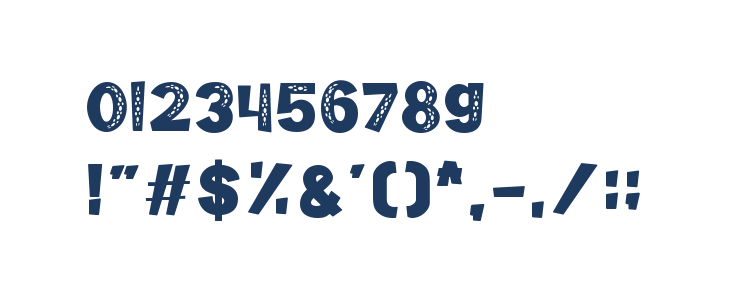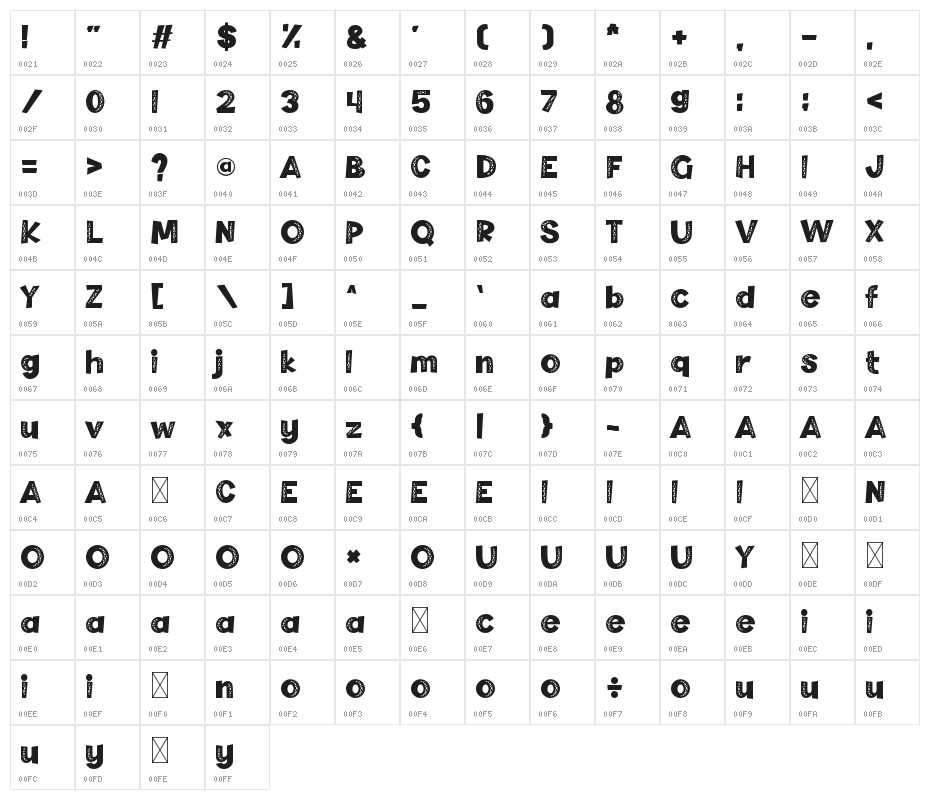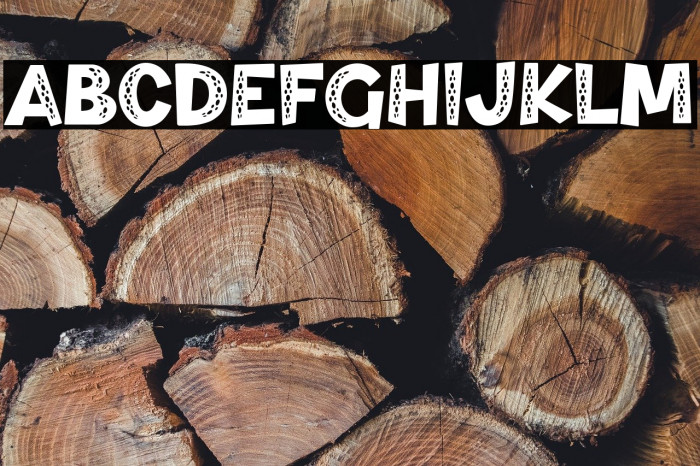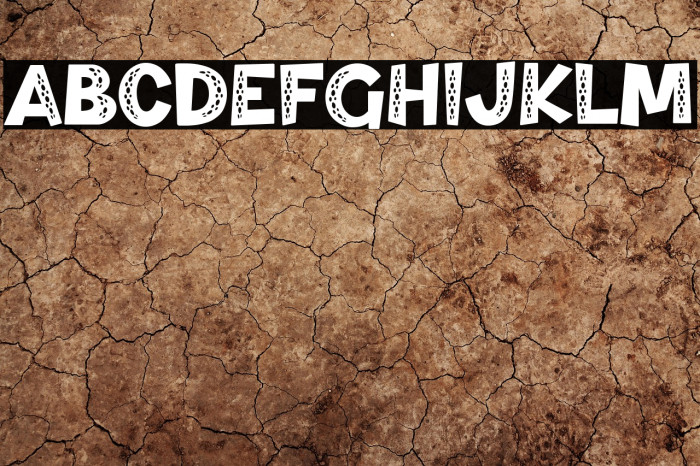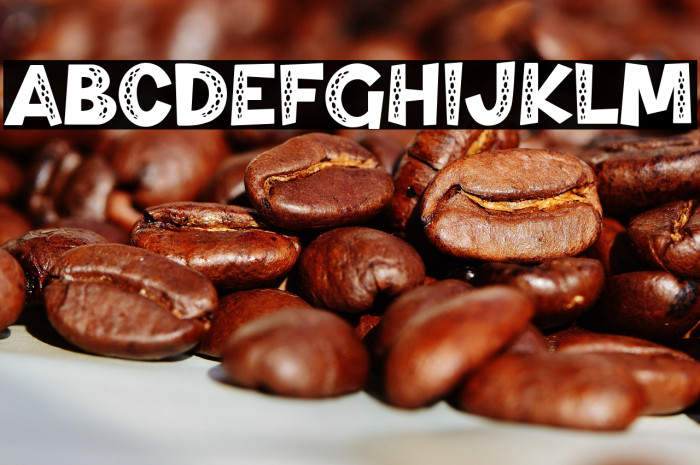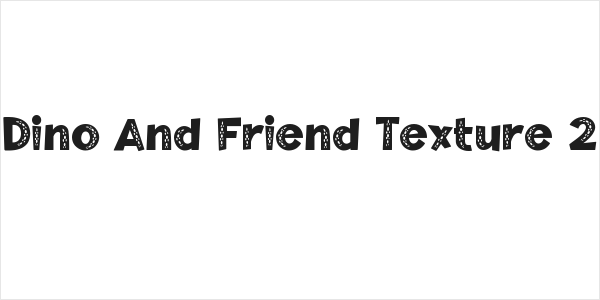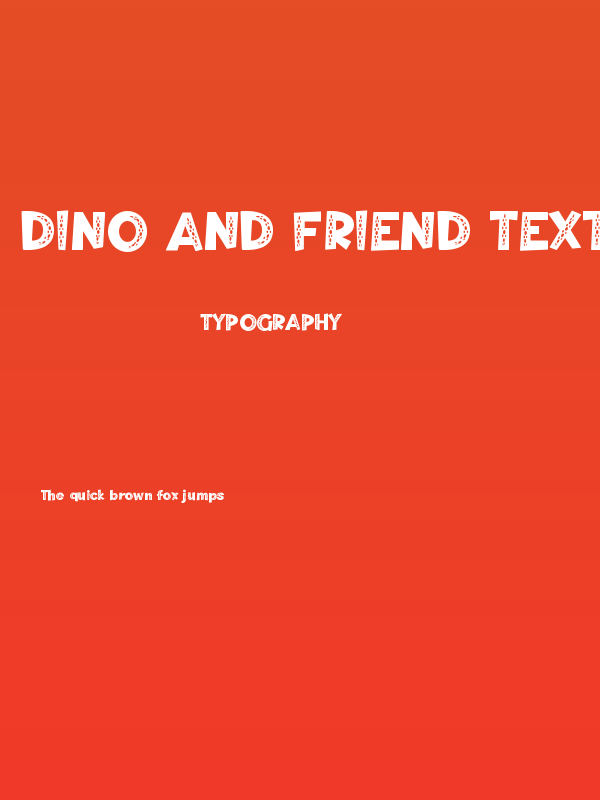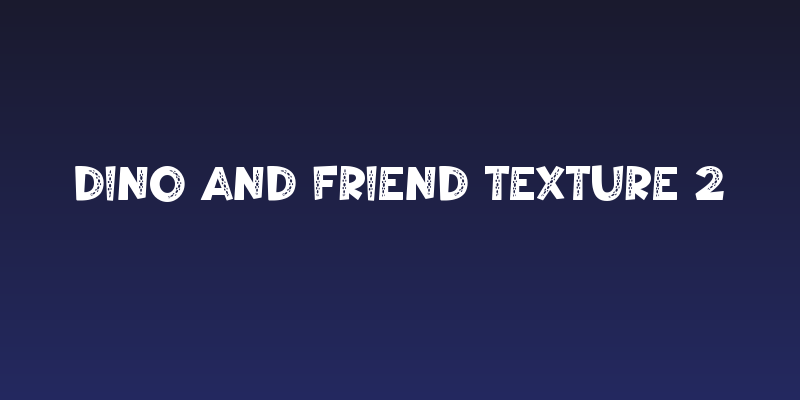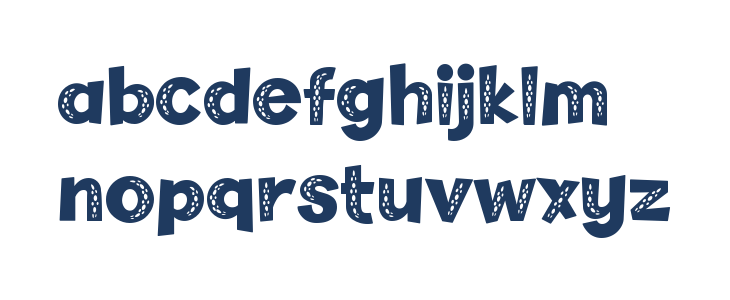
Dino And Friend Texture 2 Font
Dino And Friend Texture 2 Description
This playful and whimsical font features bold, chunky letters with a unique textured pattern inside each character. The design incorporates a mix of solid and dotted areas, giving it a lively and dynamic appearance. The uppercase and lowercase letters maintain a consistent style, with rounded edges and a slightly irregular baseline that adds to its charm. Numbers and special characters follow the same playful theme, making it suitable for creative and fun projects. The font's boldness and distinctive style make it stand out, perfect for capturing attention.